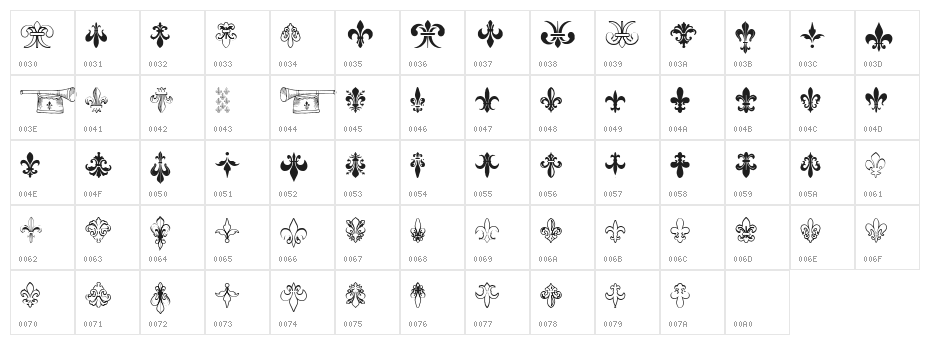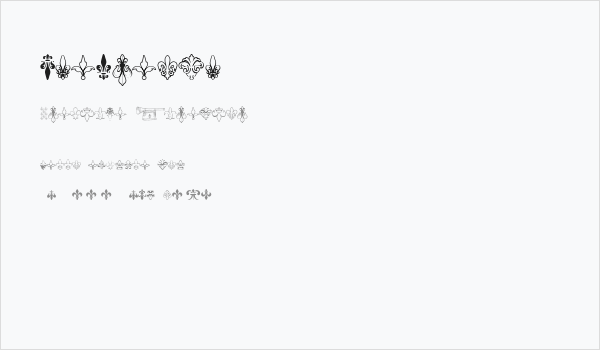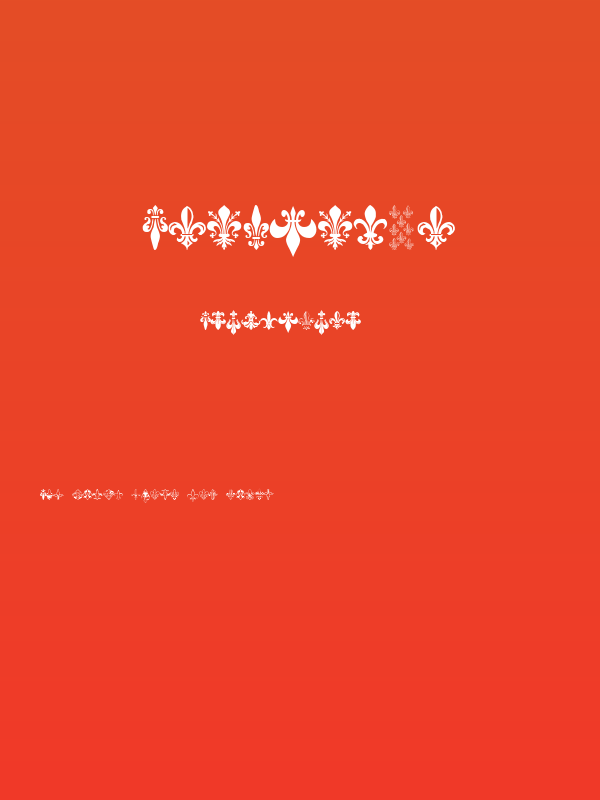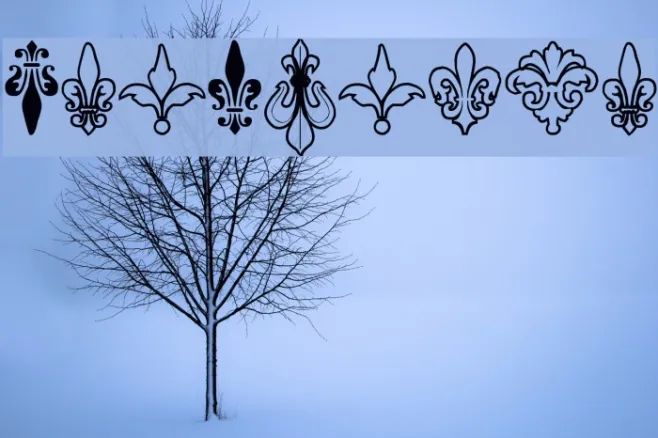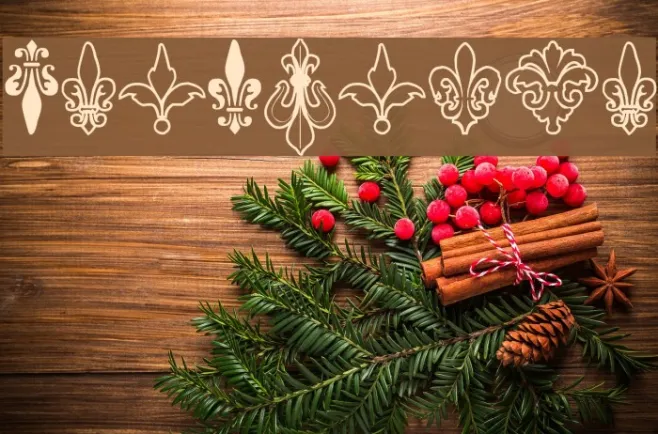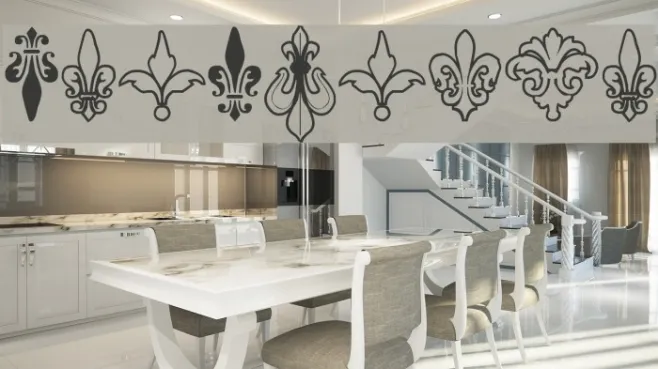
TheFrench Font
TheFrench Description
A decorative collection of fleur-de-lis symbols and ornate motifs, featuring a variety of intricate and stylized designs with both solid and outlined forms. The glyphs are highly ornamental, with some including additional elements such as banners or flourishes, evoking a historical and regal aesthetic.
| Overall Style | Decorative, Vintage, Regal |
| Use Case | Borders, embellishments, logos, ornamental accents. |
| Proposed Projects | Invitations, certificates, heraldic designs, branding for luxury or historical themes, decorative borders. |